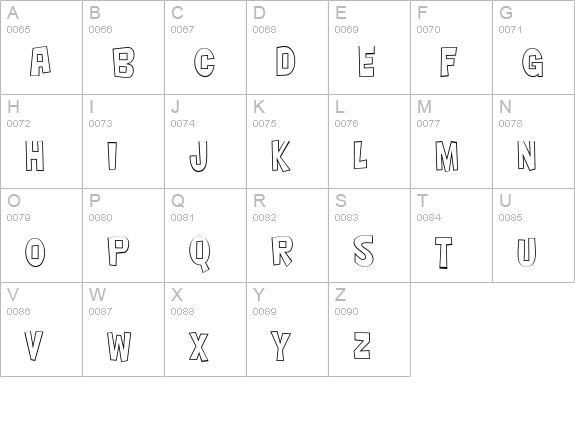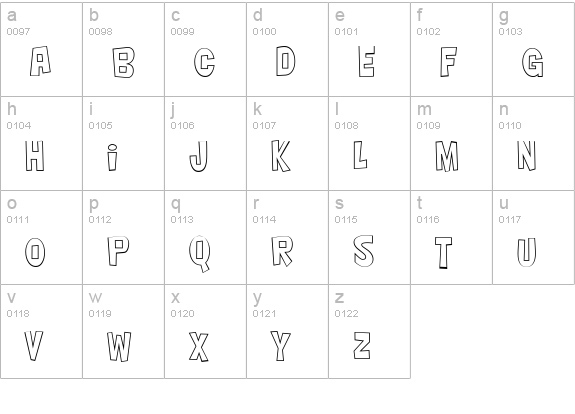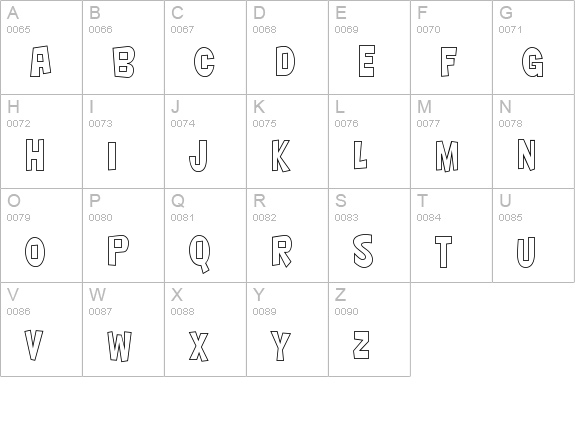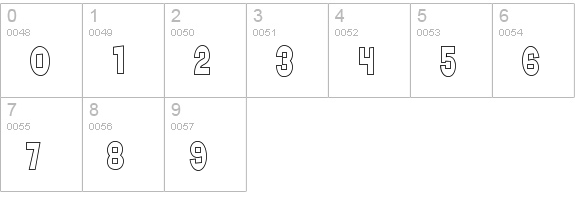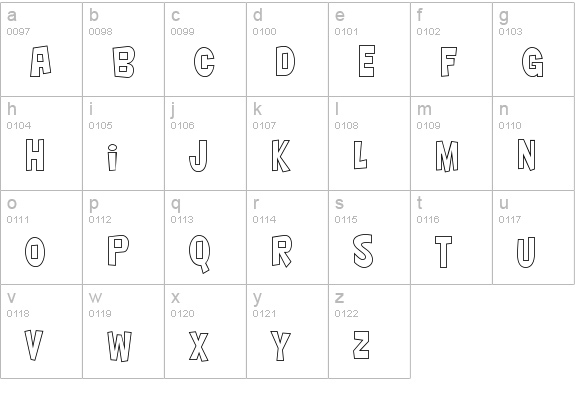
Nightclub BTN Out Cn Font Details
Nightclub BTN Out Cn font is a stylish and modern typeface that exudes a sense of sophistication and elegance. Its sleek and edgy design makes it perfect for creating eye-catching headlines and striking graphics. The unique outline style adds a contemporary touch to any project, making it stand out from the crowd. What's even better is that Nightclub BTN Out Cn font is available for free download at FontsMarket.com. This means you can easily access this fantastic font and use it in your designs without any cost. Whether you're working on a personal project or a professional design, this font is a great choice to add a touch of flair and creativity. Download Nightclub BTN Out Cn font today and elevate your designs to the next level!